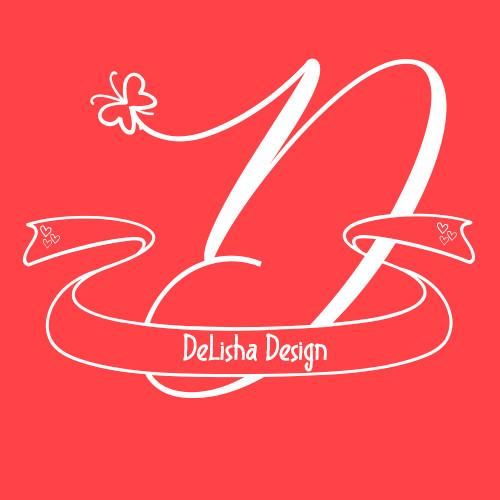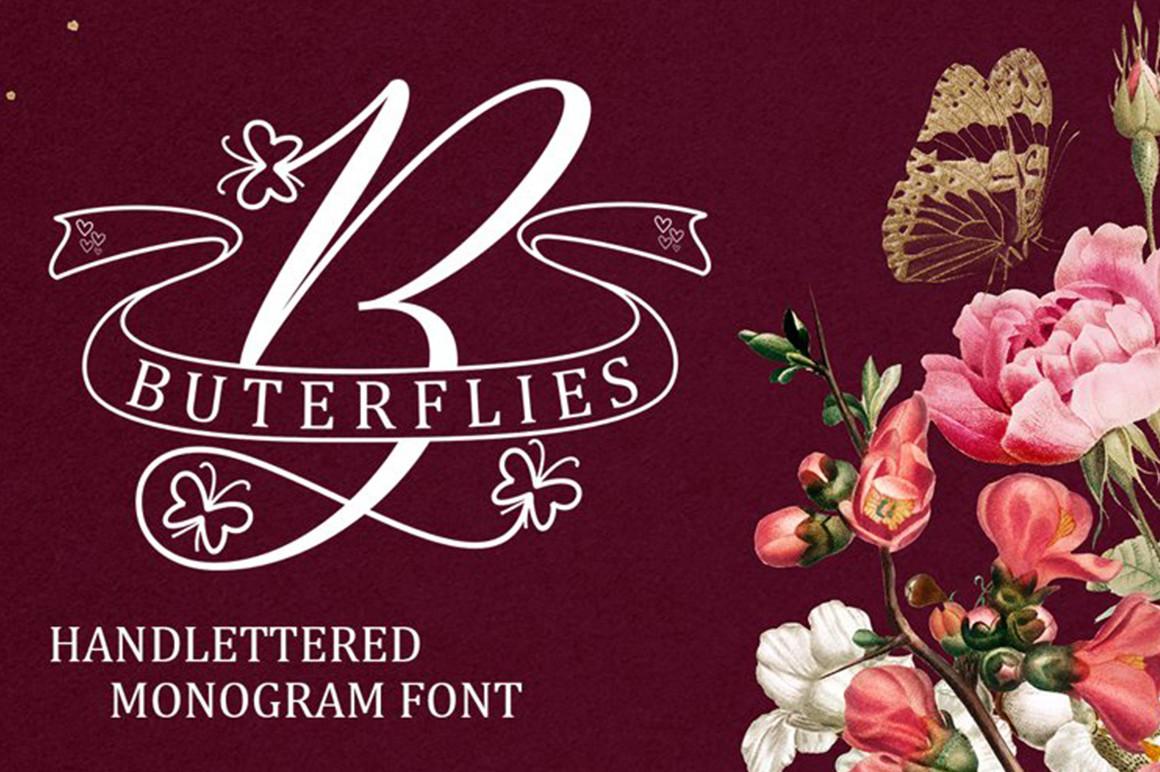
Butterflies Monogram Font Free & Premium Download
Butterflies Monogram Font Description
Butterflies Monogram is a delicate, highly detailed and elegant handwritten font. It maintains its classy calligraphic influences while feeling contemporary and fresh. Fall in love with it and bring your projects to the highest levels!